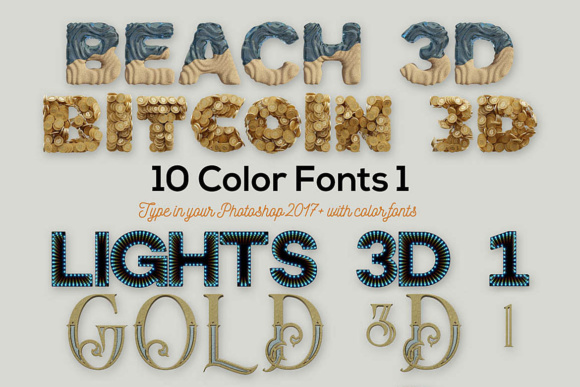
Introducing the 10 Color Font Collection by JumboDesign! Are you ready to take your creative projects to the next level? Look no further because these vibrant and captivating fonts are exactly what you need. With their playful and eye-catching designs, they will instantly elevate your display fonts toolbox.
Featuring 10 color SVG fonts, this collection is a must-have for designers and creatives looking to make a bold statement. Each font is carefully crafted to bring life and vibrancy to your projects, making them truly stand out from the crowd. Whether you're working on a logo, a poster, or any other design, these fonts will add that extra touch of uniqueness and flair.
When you download the 10 Color Font Collection, you're not just getting a set of fonts - you're getting a world of possibilities. Imagine the impact these vibrant and expressive fonts will have on your branding, advertising, or social media posts. They will undoubtedly leave a lasting impression on your audience and make your message truly unforgettable.
Don't settle for ordinary when you can have extraordinary. Step into the world of limitless creativity with the 10 Color Font Collection by JumboDesign. Whether you're a graphic designer, a marketer, or simply someone who loves adding a touch of color to their projects, this collection is a must-have. So why wait? Download now and let your imagination run wild!